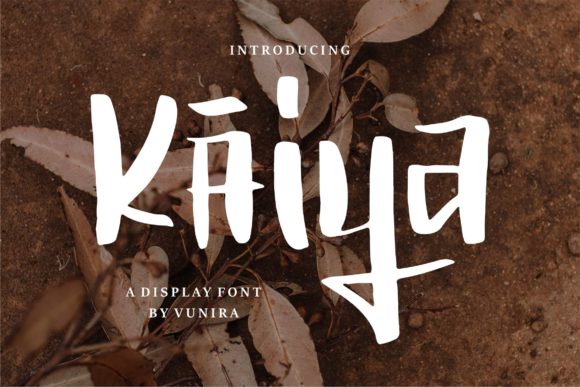
Journey into the enchanting world of Kaiya Font, where elegance meets creativity. Crafted with care by Vunira, this remarkable display font captures the essence of sophistication and style. Kaiya is not just a font; it's an artistic masterpiece. Its calligraphic strokes dance across your designs, leaving a trail of beauty and intrigue. Dive into its depths and unleash your boundless imagination.
With Kaiya Font as your creative companion, transform your designs into breathtaking works of art. Its intricate details and flowing curves bring a touch of timeless charm to every project. Whether you're crafting invitations that announce special occasions, designing greeting cards that convey heartfelt sentiments, or creating business cards that make a lasting impression, Kaiya Font elevates your creations to new heights.
Embark on a journey of self-expression with Kaiya Font. Unleash your inner artist and let your creativity flow. Design posters that capture the essence of your message, enchant your branding materials with a touch of elegance, or create quotes that resonate with heartfelt emotions. Kaiya Font is the bridge between your imagination and the world, allowing you to share your unique perspective with the stroke of a key.
Kaiya Font isn't just a tool; it's an extension of your creativity. It's the perfect choice for designers, artists, and anyone with a passion for creating something truly special. Experience the magic of Kaiya Font today and unlock a world of endless possibilities. Transform your designs into works of art, captivate your audience, and leave a lasting impression that lingers long after the ink has dried.